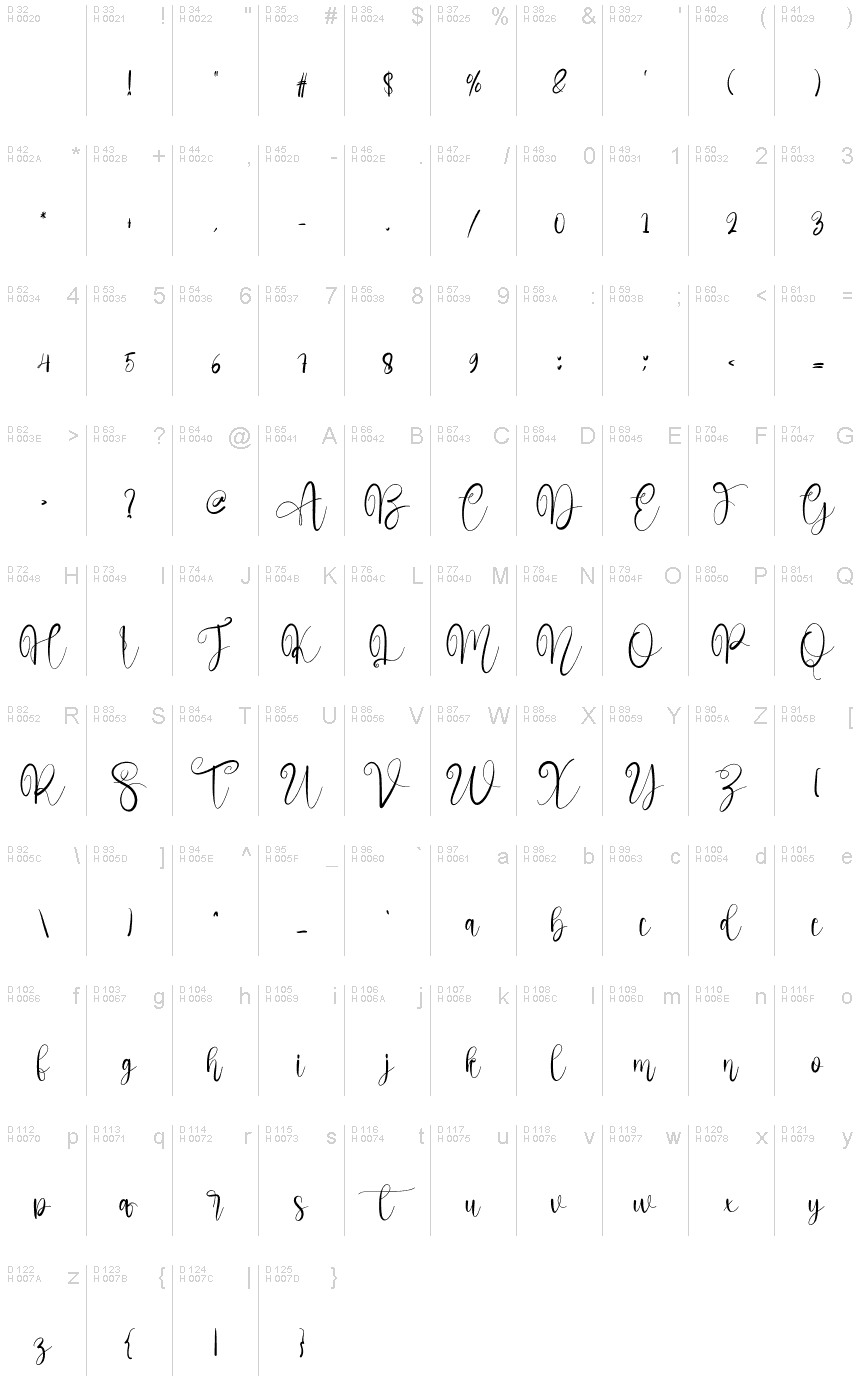
Workhouse
Workhouse font is a lovely calligraphy font designed by Metal Studio.
the latest style letters are perfect for wall displays, wedding invitations, social media post logos,
advertisements, product packaging, product designs, labels, photography, watermarks, invitations, stationery,
and any project that requires taste handwriting.